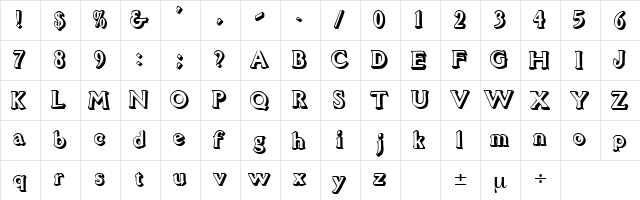
Avion Regular
Design Context for Avion Typeface
Avion is a composed and adaptable typeface that performs quietly and consistently across a wide range of design contexts.